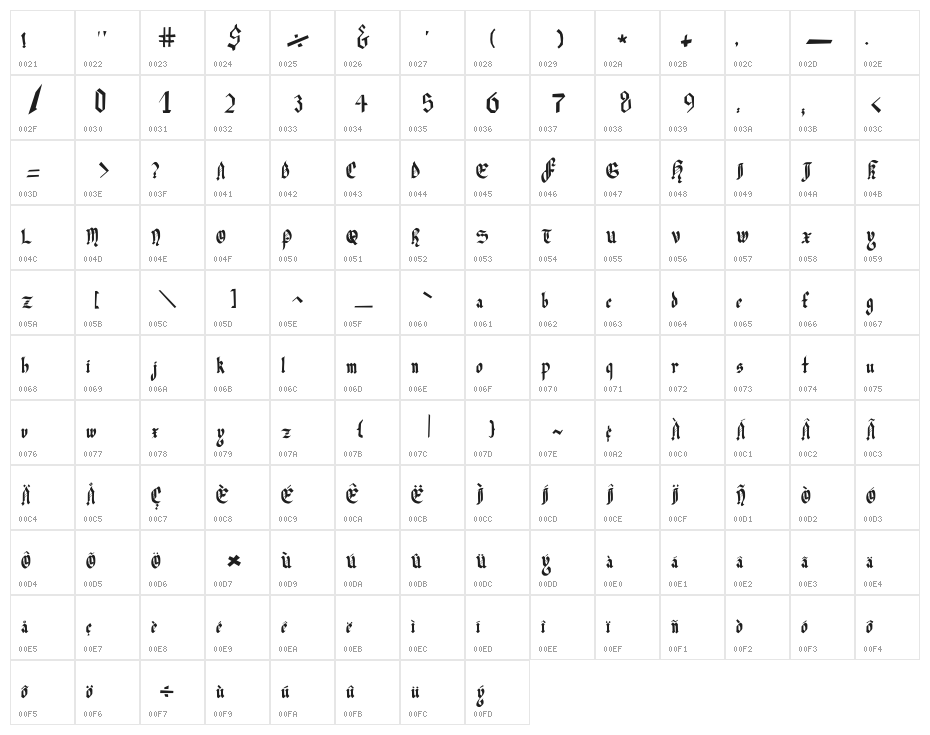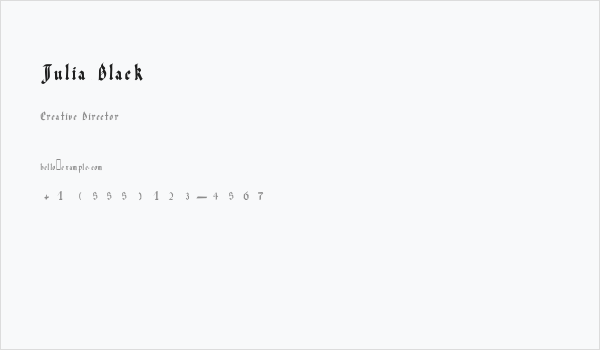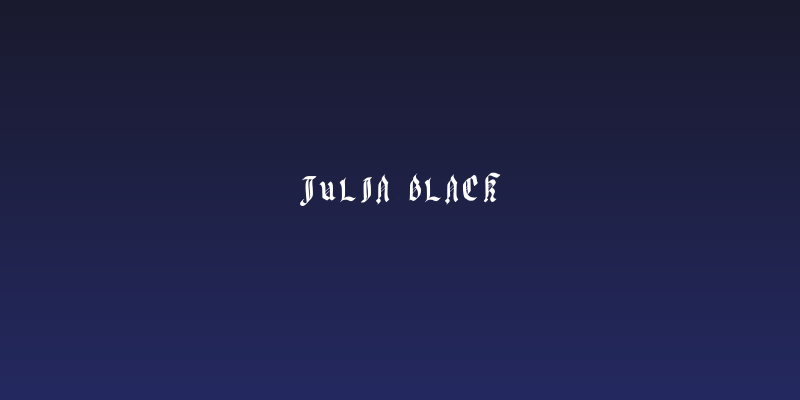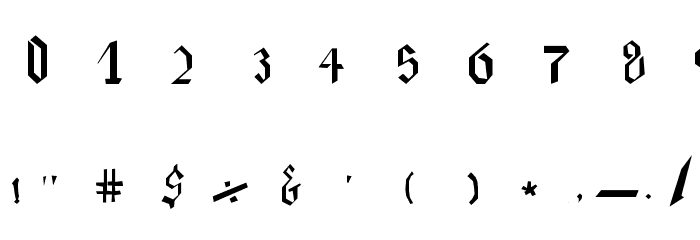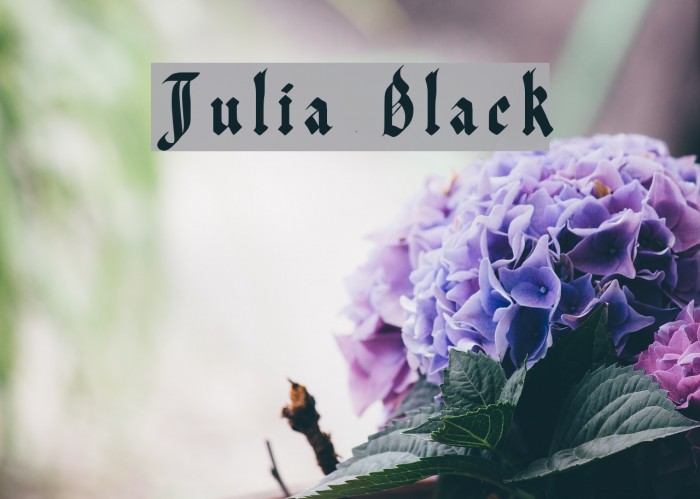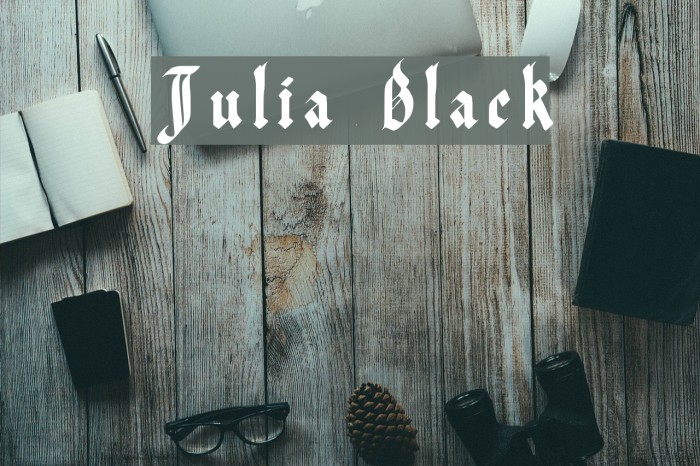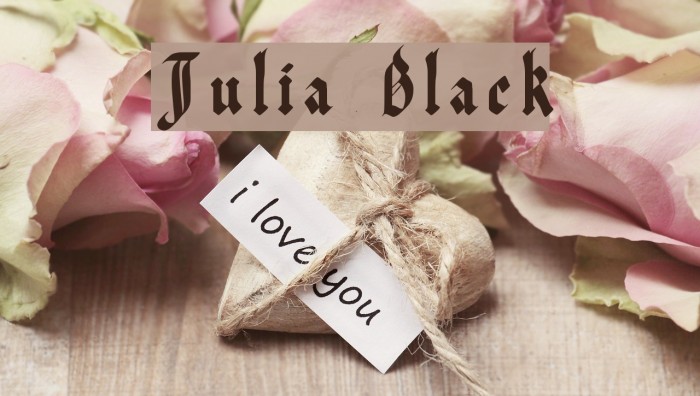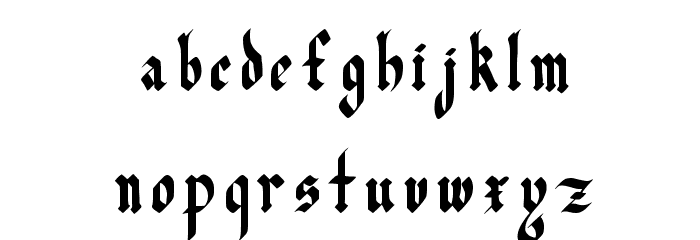
Julia Black Font
Julia Black Description
This font features a traditional blackletter style, characterized by its ornate and intricate letterforms. The uppercase letters exhibit sharp, angular lines with dramatic flourishes, while the lowercase letters maintain a consistent, gothic appearance. The numerals and special characters are designed to complement the overall medieval aesthetic, with a focus on maintaining the historical authenticity of the blackletter script. The font's bold strokes and high contrast between thick and thin lines contribute to its striking and authoritative presence, making it suitable for projects that require a touch of elegance and historical depth.
| Proposed Projects | Ideal for historical documents, certificates, book covers, posters, and branding that requires a medieval or gothic touch. |